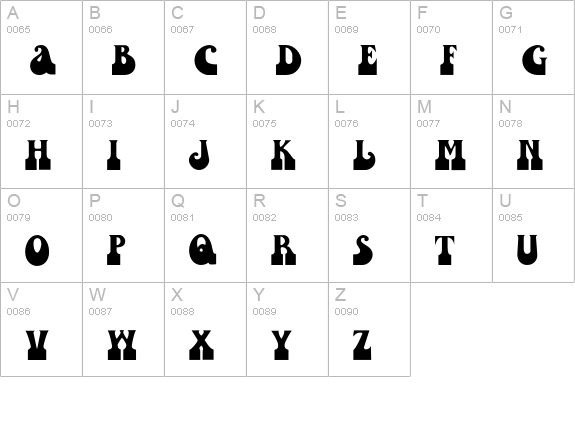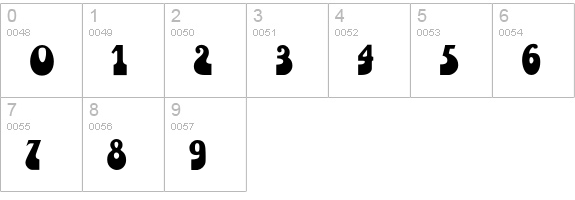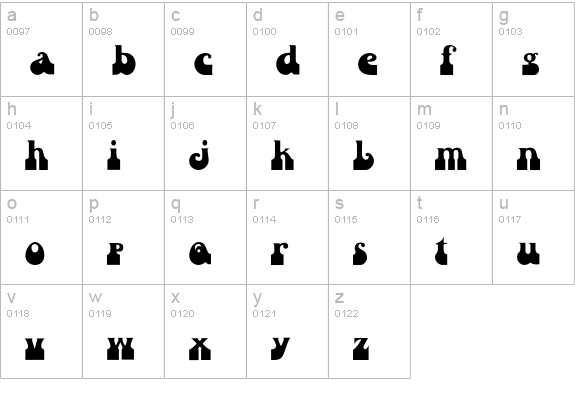
JBrady Font Details
The JBrady font is a stunning and versatile typeface that exudes elegance and sophistication. With its sleek and modern design, this font is perfect for creating eye-catching headlines, stylish logos, and captivating advertisement materials. The JBrady font features a unique combination of sharp edges and smooth curves, giving it a distinct and memorable look. Its clean and well-defined letterforms ensure legibility even at smaller sizes, making it suitable for both print and digital applications. One of the most remarkable aspects of the JBrady font is that it is free to use. Yes, you read that right! This incredible font is freely available to download at FontsMarket.com, a trusted source for high-quality fonts. Whether you're a professional designer or an aspiring artist, you can now elevate your projects with this exceptional font without any cost. Whether you're designing a website, creating social media graphics, or crafting personalized invitations, the JBrady font is a fantastic choice that will make your text stand out. Its versatility allows it to adapt to various design styles, from modern and minimalist to bold and expressive. With the JBrady font, you can unleash your creativity and bring your ideas to life. Its bold and stylish aesthetic will leave a lasting impression on your audience, making it a valuable asset in your font collection. Don't miss out on the opportunity to enhance your designs with the JBrady font. Visit FontsMarket.com today and download this incredible font for free. Elevate your creative projects and leave a lasting impact with the JBrady font.